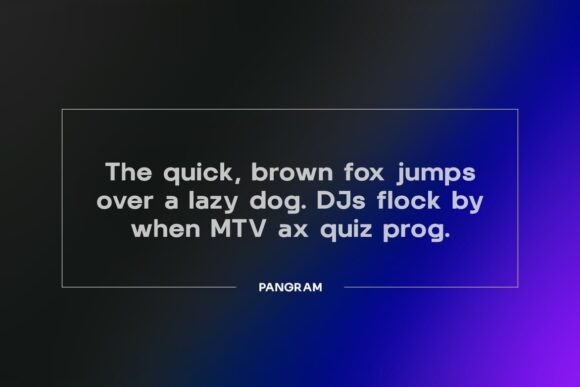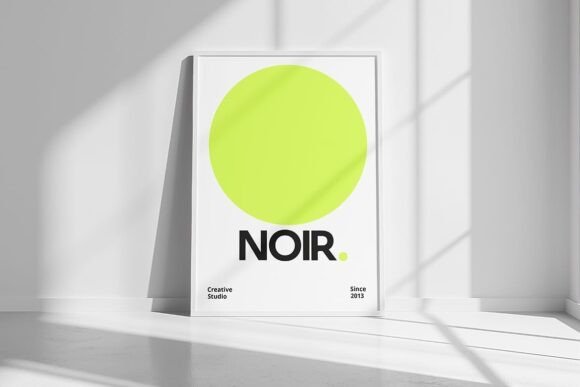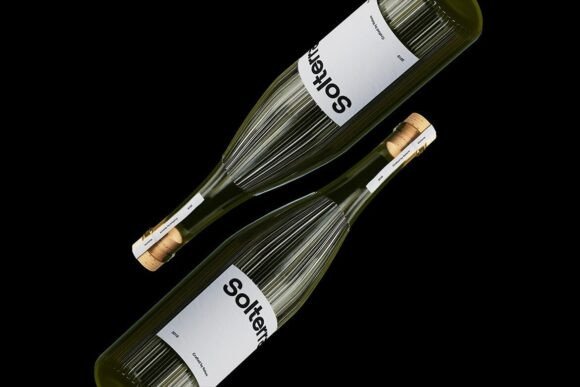
Hector Font
About the Hector Font
Let us introduce you to Hector Font, where timeless design meets modern craftsmanship. Hector Sans is a clean and versatile sans-serif typeface, designed with simplicity and elegance in mind. Currently available in a single weight, with more styles on the way, it’s perfect for any design project that requires a professional and modern touch. Hector Sans offers exceptional readability and a refined aesthetic that will bring sophistication to your work.
Hector Sans’s clean lines and elegant simplicity make it ideal for headlines, branding applications, and short text blocks on posters or packaging. Its refined aesthetic lends itself well to projects requiring a modern and sophisticated feel, such as corporate brochures or minimalist website designs. However, its single weight (for now) limits its versatility for extended body text or UI elements where varied weights are crucial for readability and hierarchy.
Pairing Hector Sans effectively depends on the desired outcome. For a classic, balanced look, consider pairing it with a traditional serif like Garamond or a neutral sans-serif like Lato. To emphasize its modern edge, a geometric sans-serif like Futura or a contrasting script font like Playfair Display could create a dynamic combination.
The overall personality of Hector Sans is sophisticated and modern, conveying professionalism and a sense of understated elegance. It is not playful or overly bold, but rather refined and dependable, making it a strong choice for brands seeking to project confidence and credibility.